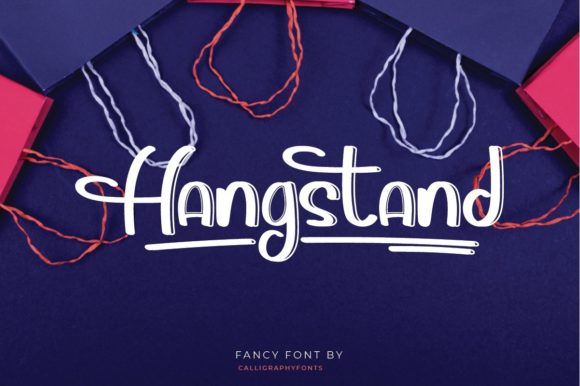
Step into a world of effortless elegance with Hangstand Font, a captivating script font that will elevate your designs to new heights. Its meticulously crafted curves and vintage charm evoke a sense of timeless sophistication, making it the perfect choice for fashion branding, editorial layouts, and any project seeking a touch of refined allure.
Hangstand Font is not just a collection of letters; it's a gateway to creativity. Its smooth flow and graceful swashes allow you to effortlessly express your artistic vision. Each character is a masterpiece, designed with precision and care to ensure that your words have the impact they deserve.
With Hangstand Font, you'll unlock a world of possibilities. Its versatility extends from delicate invitations to eye-catching logos, ensuring that your designs stand out from the crowd. Its PUA encoding grants you effortless access to a treasure trove of glyphs and swashes, empowering you to add intricate details and flourishes that will leave a lasting impression.
Embrace the beauty of Hangstand Font and let your creativity soar. Its timeless elegance and captivating charm will transform your designs into works of art, leaving a lasting impact on your audience.
Don't settle for ordinary fonts; choose Hangstand Font and elevate your designs to the extraordinary. Its vintage charm and graceful curves will captivate your audience, leaving them spellbound by the beauty of your creations.
Experience the power of Hangstand Font today and embark on a journey of design excellence. Its versatility and ease of use make it the perfect companion for any project, whether you're a seasoned designer or just starting your creative adventure. Let Hangstand Font guide your imagination and watch as your designs take on a new life of timeless elegance.